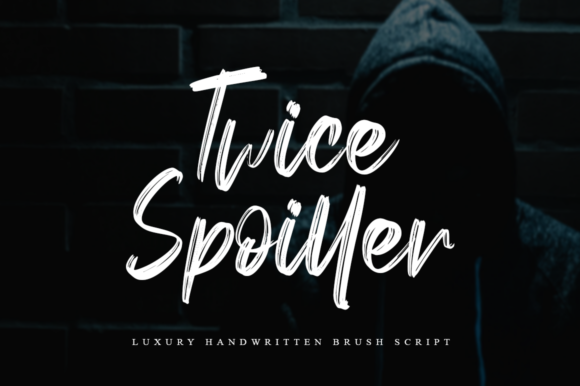
**Unleash the Enchanting Twice Spoiller: A Font of Unforgettable Charm**
Prepare to be captivated by Twice Spoiller, a handwritten font that exudes elegance and modern flair. Its intricate strokes and sweeping curves evoke the delicate touch of a master calligrapher, yet it remains effortlessly fresh and current.
Twice Spoiller seamlessly marries the timeless appeal of calligraphy with a contemporary aesthetic, resulting in a font that is both captivating and versatile. Its graceful lines and subtle flourishes will add a touch of sophistication to any design, whether it's a captivating logo, an alluring invitation, or an enchanting social media post.
This meticulously crafted font is the brainchild of the renowned Haksen, a visionary designer known for creating fonts that resonate with beauty and functionality. With Twice Spoiller, Haksen has once again surpassed expectations, delivering a font that is not only visually stunning but also incredibly versatile.
If you seek a font that will elevate your designs to new heights, look no further than Twice Spoiller. Its timeless elegance and contemporary charm will turn heads and leave a lasting impression. Embrace the beauty of Twice Spoiller and witness the transformative power it brings to your creative endeavors.
**Reasons to Love Twice Spoiller:**
* **Unforgettable Charm:** Its enchanting curves and delicate strokes will captivate your audience.
* **Timeless Elegance:** Experience the allure of calligraphy, reimagined with a modern twist.
* **Effortless Versatility:** From logos to invitations, Twice Spoiller adapts seamlessly to any project.
* **Haksen's Masterpiece:** Trust the expertise of a renowned designer to deliver a font of exceptional quality.
* **Unleash Your Creativity:** Let Twice Spoiller inspire your designs and unlock your imagination.